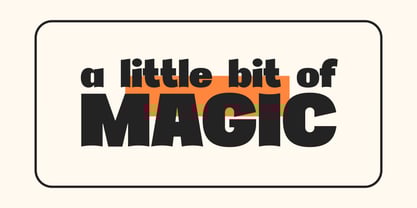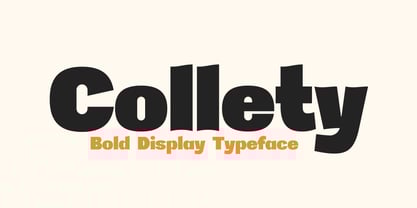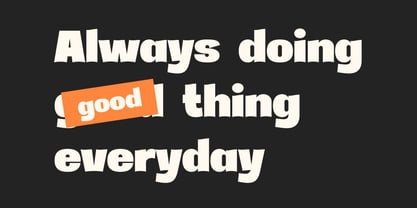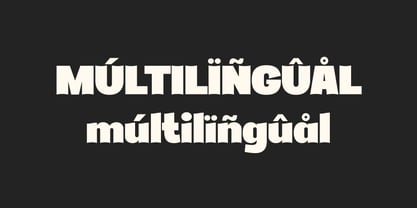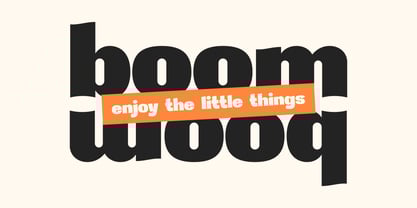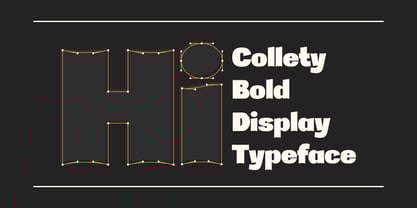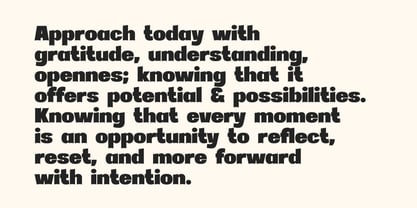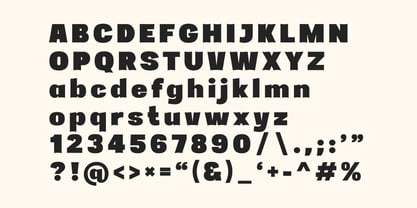
Collety
by Hitype
The Collety Font Family was designed by Hernando Marlay and published by Hitype. Collety contains 1 styles. More about this family
Collety is a bold and modern sans serif display typeface. This typeface has uniquely shaped letters that will stand out from any background. Suitable for logos, posters, packaging, branding, invitations, notes, etc.
Designers: Hernando Marlay
Foundry: Hitype